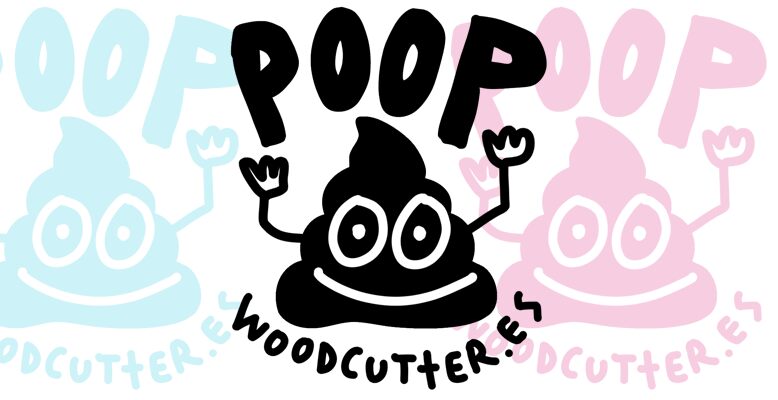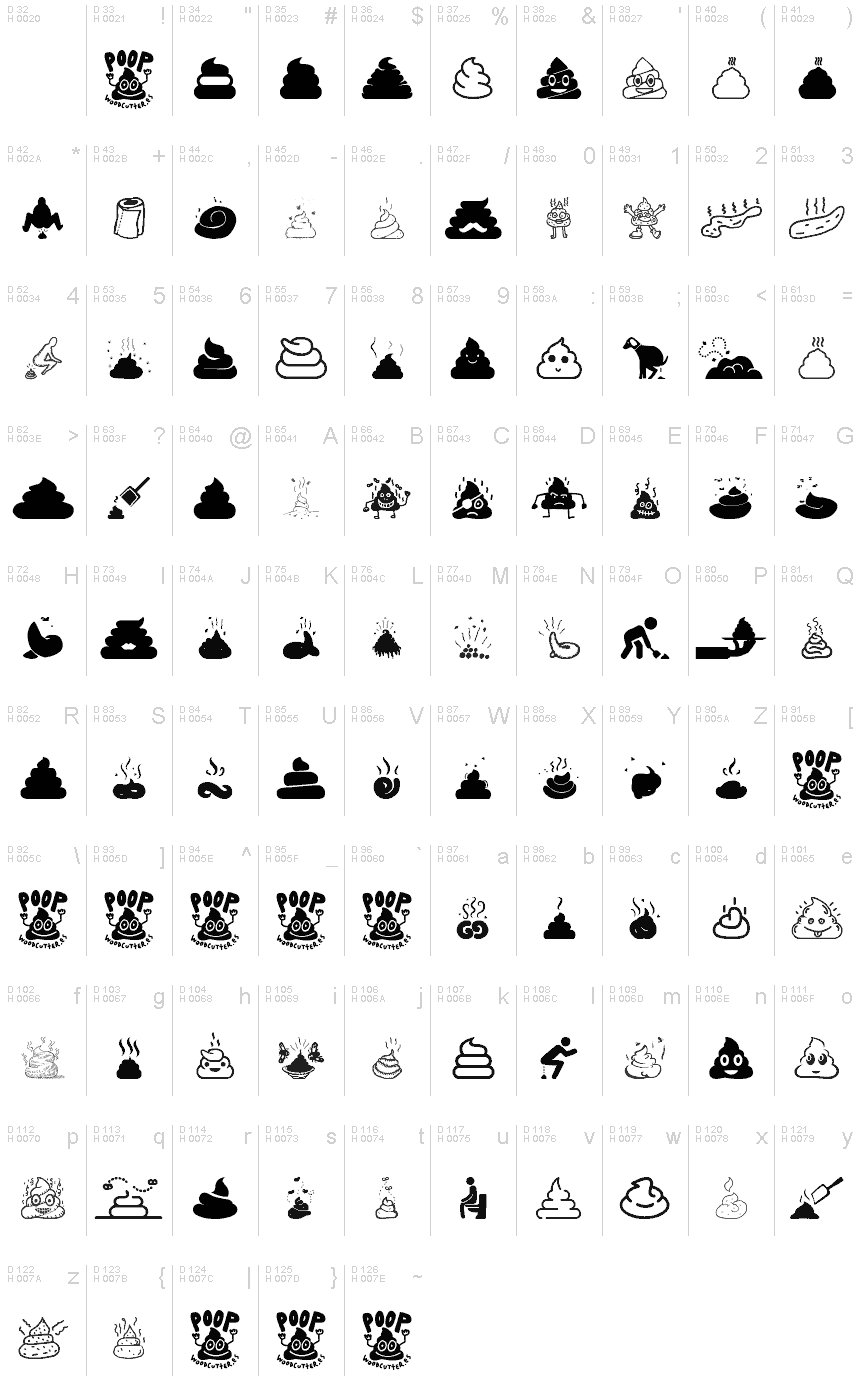
Poop
Poop, a dingbat font created by Woodcutter Manero, exudes a playful, cartoon-inspired aesthetic. Its whimsical shapes and expressive lines capture the essence of its namesake, making it a delightful choice for a variety of design applications. From humorous social media posts to quirky branding elements, Poop's versatility allows it to inject a touch of levity and personality into any project. Its distinctive style sets it apart, making it a standout option for designers seeking to incorporate a touch of irreverence and charm into their work.
Poop's design invites playful exploration, encouraging users to experiment with its multifaceted forms. Whether incorporated into digital illustrations, printed materials, or even product packaging, this font has the potential to add a touch of lighthearted charm to any design.